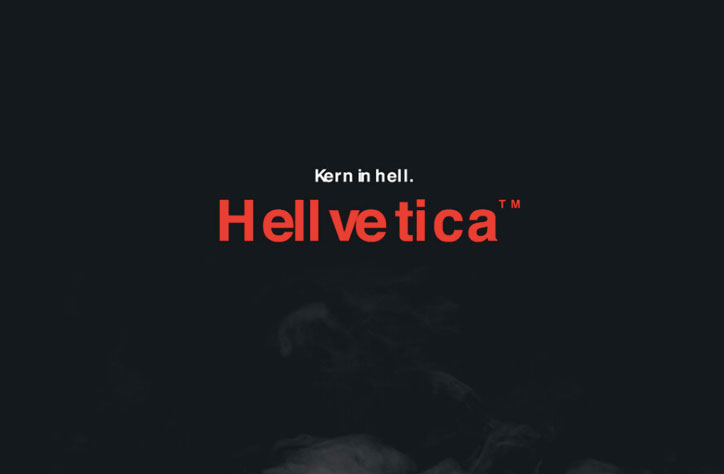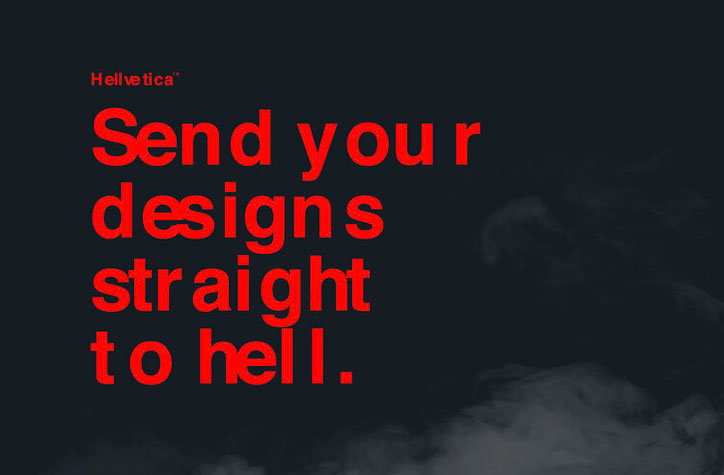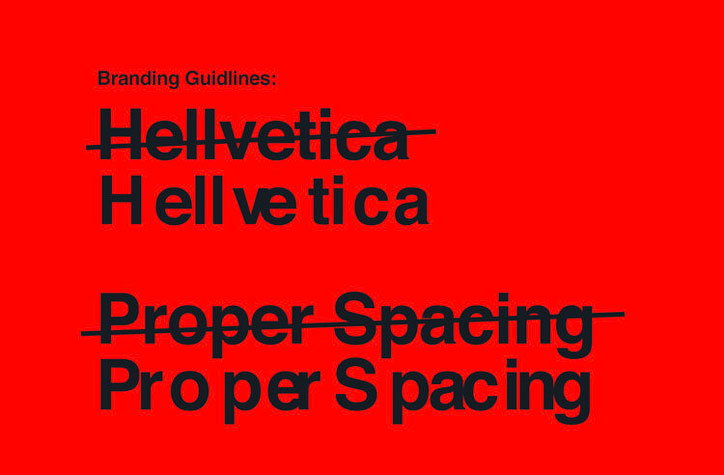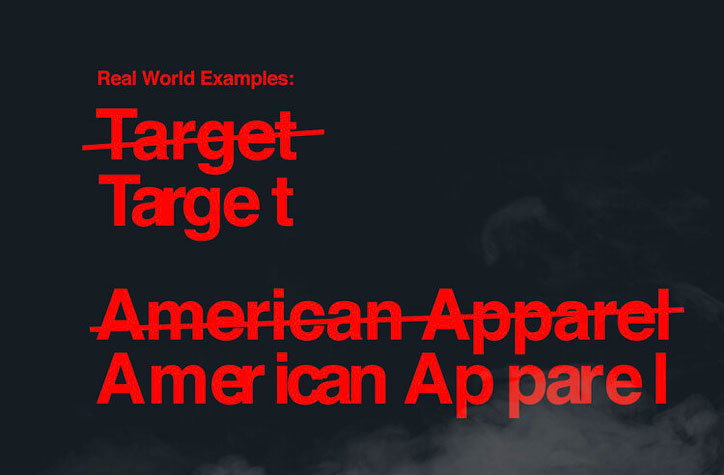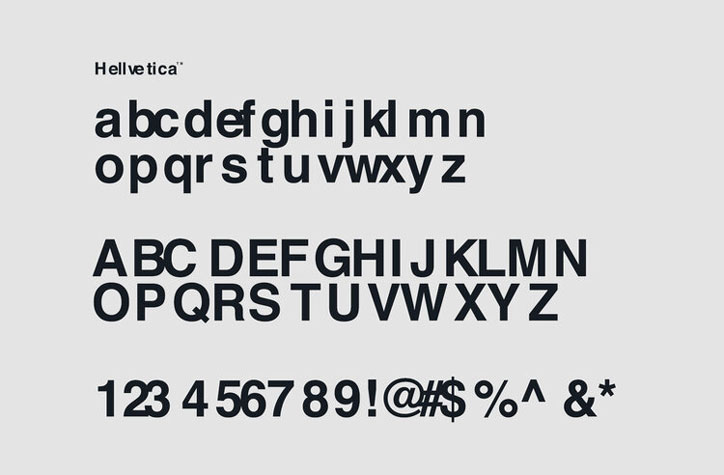
Hellvetica typeface terrifies graphic designers with blood-curdling kerning
Zack Roif and Matthew Woodward, R/GA: Hellvetica
After an invitation to the office Halloween party themed Hellvetica dropped into his inbox, Zack Roif – associate creative director at R/GA New York – wanted to take the knowingly nerdy designer in-joke further by making it a reality. He reached out to colleague Matthew Woodward, also an ACD at the agency, and together they made Hellvetica, a typeface “like Helvetica, but with like, much shittier kerning for Halloween”.
The type is designed to strike fear in the hearts of graphic designers everywhere, with painfully uneven gaps between letterforms, ranging from huge, glaring spaces you could drive a bus through, to non-existent spacing which causes characters to overlap, or – worse still – almost touch, but for a pixel. Shudder
The designers helpfully provide “real world examples” of how the type could be applied to well-known uses of Helvetica to ruin brands on a grander scale, for example on the Target and American Apparel word marks. It also shows the full alphabet by giving a ubiquitous sentence a spine-tingling twist: “The quick brown fox jumped over the lazy dog and into the underworld”. The hellishness continues into numerical figures and symbols too, rejoice!
Since its launch, Hellvetica has been irritating designers around the world, while others have found schadenfreudian joy in using the type on well-known identities, such as Panasonic, American Airlines and even the New York Subway system signage. Others joked about reporting the tweet (presumably for crimes against design). Roif and Woodward even have posthumous “quotes” on the Hellvetica site from the likes of Massimo Vignelli (who designed the NY Subway and American Airlines identities) saying “This looks like shit” and Max Miedinger, designer of Helvetica, asking “What have you done?” In contrast, Satan has been quoted saying “I don’t hate it”.
Meanwhile, Roif capped the Instagram account at 666 followers, for fittingly satanic reasons, as the likes on Twitter racked up to the tens of thousands. Clearly there’s a market for terrible design, especially at the spookiest time of the year.
Zack Roif and Matthew Woodward, R/GA: Hellvetica